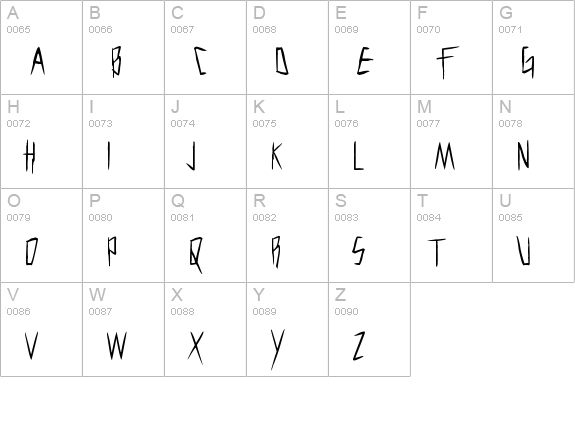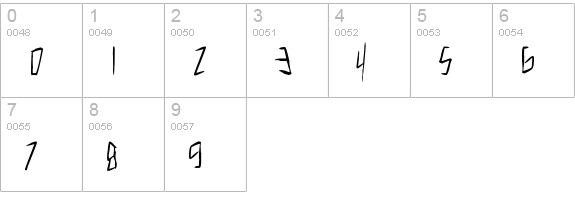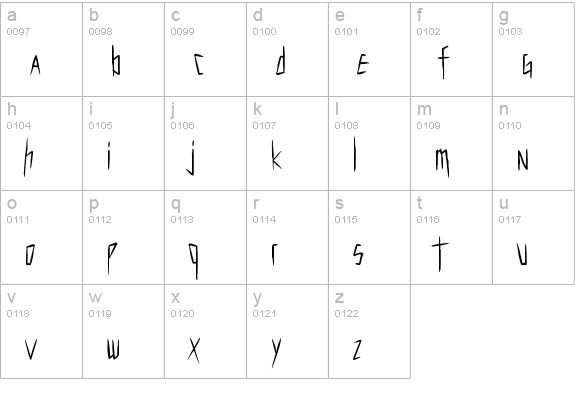
Cutthroat Clawmarks Font Details
Introducing Cutthroat Clawmarks font, a fierce and bold typeface that exudes power and strength. With its sharp edges and jagged lines, this font captures the essence of raw energy and intensity. Each letter is meticulously designed to resemble clawmarks, giving your designs a unique and edgy look. Cutthroat Clawmarks font is perfect for projects that demand attention and make a bold statement. Whether you're creating posters, logos, or merchandise, this font will add a touch of danger and excitement to your designs. Best of all, Cutthroat Clawmarks font is completely free to download at FontsMarket.com. Don't miss out on this opportunity to add a touch of ferocity to your projects with this striking font. Download it today and unleash the power of Cutthroat Clawmarks in your designs!